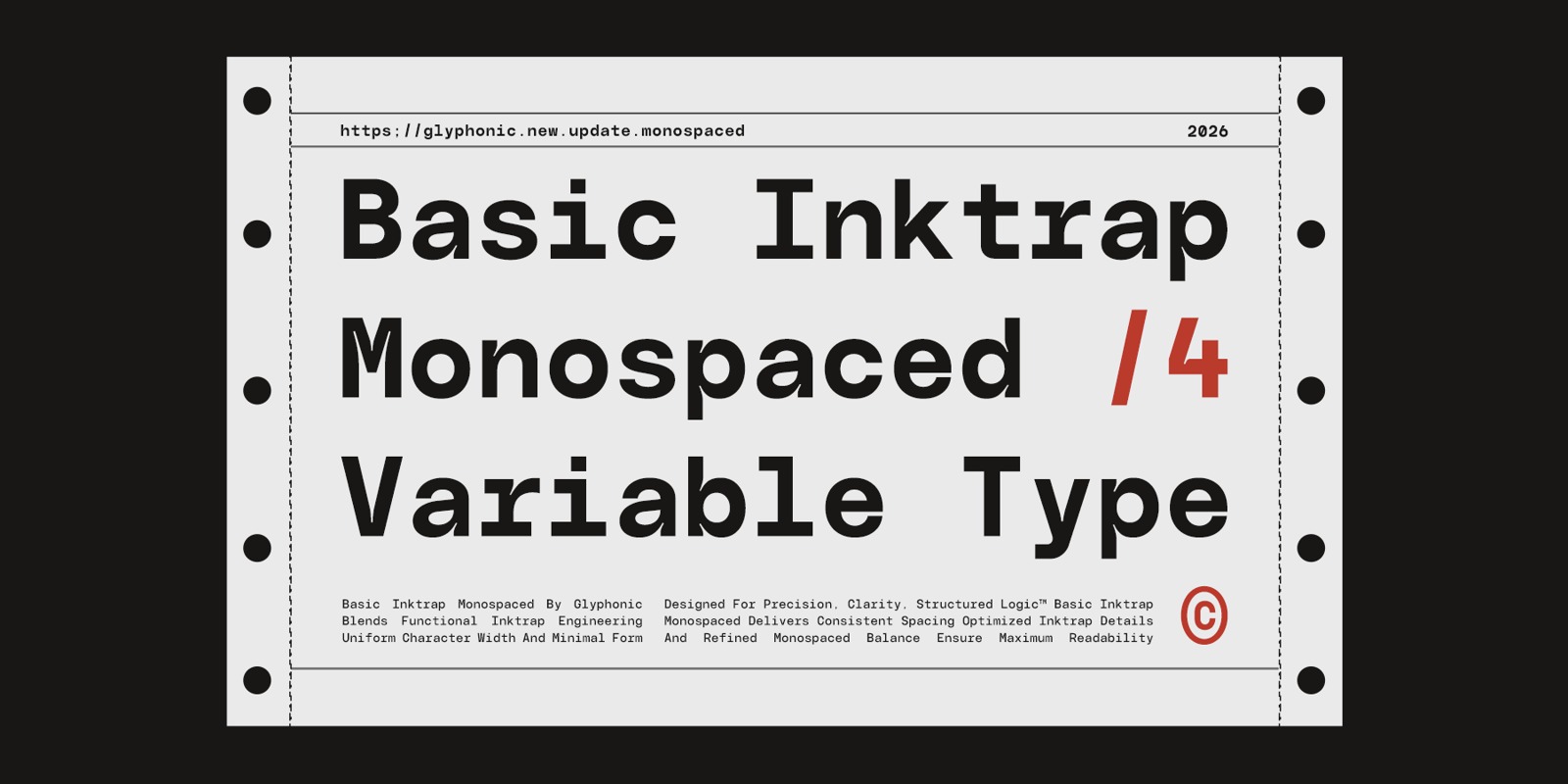
GC Basic Inktrap Monospace Font Family
GC Basic Inktrap Monospace Font Family is a stylish typeface that enhances visual appeal and works effortlessly in many design contexts. GC Basic Inktrap – Variable Monospace is a contemporary monospaced typeface designed for precision, clarity, and structured visual rhythm. Built with functional inktrap engineering and uniform character spacing, Basic Inktrap delivers a clean and technical typographic voice suited for modern digital communication.
With its bold monospace construction, sharp geometry, and optimized inktrap details—as seen in its consistent letter widths and refined cuts—**GC Basic Inktrap** creates a balanced and highly readable appearance. The structured system enhances alignment and spacing, making it ideal for coding visuals, interface design, editorial systems, tech branding, and modern grid-based layouts.
As a variable font, GC Basic Inktrap offers flexible weight control, allowing designers to build strong hierarchy while maintaining the consistency expected from a monospaced typeface. Despite its technical foundation, the font preserves a modern and approachable character across all weights.
Crafted for both digital and print environments, GC Basic Inktrap blends functional precision with contemporary aesthetics, bringing clarity, rhythm, and structured logic into every composition.